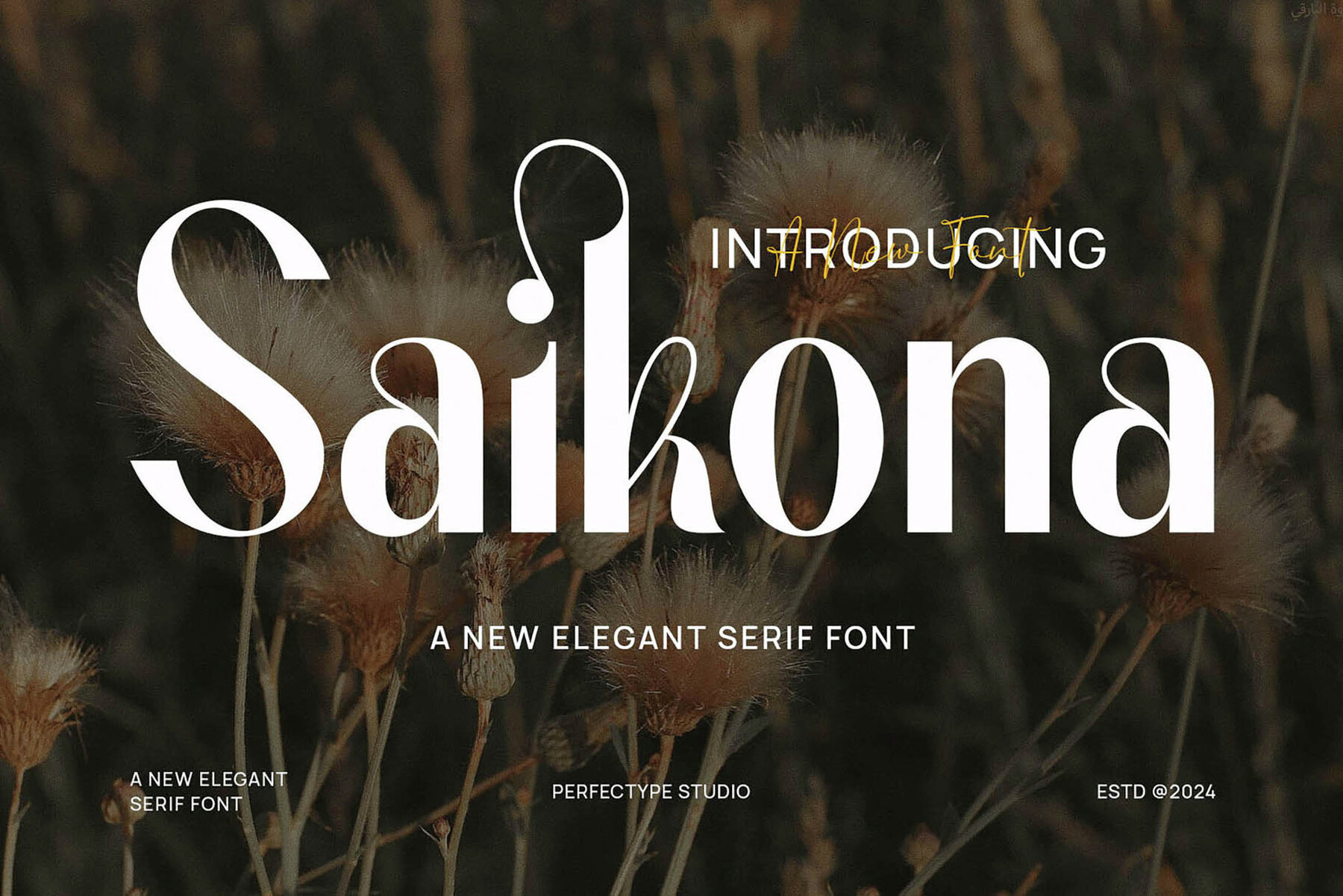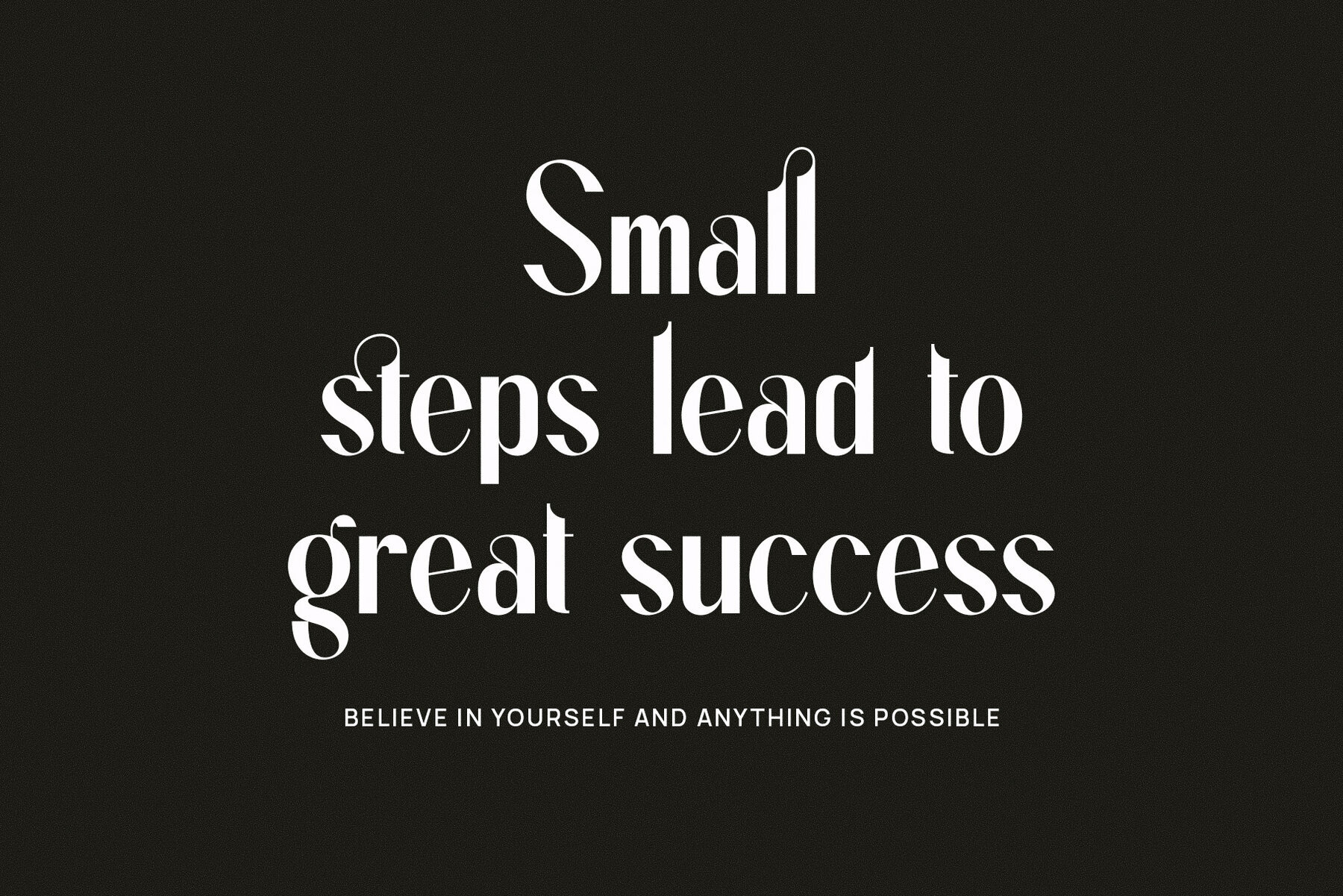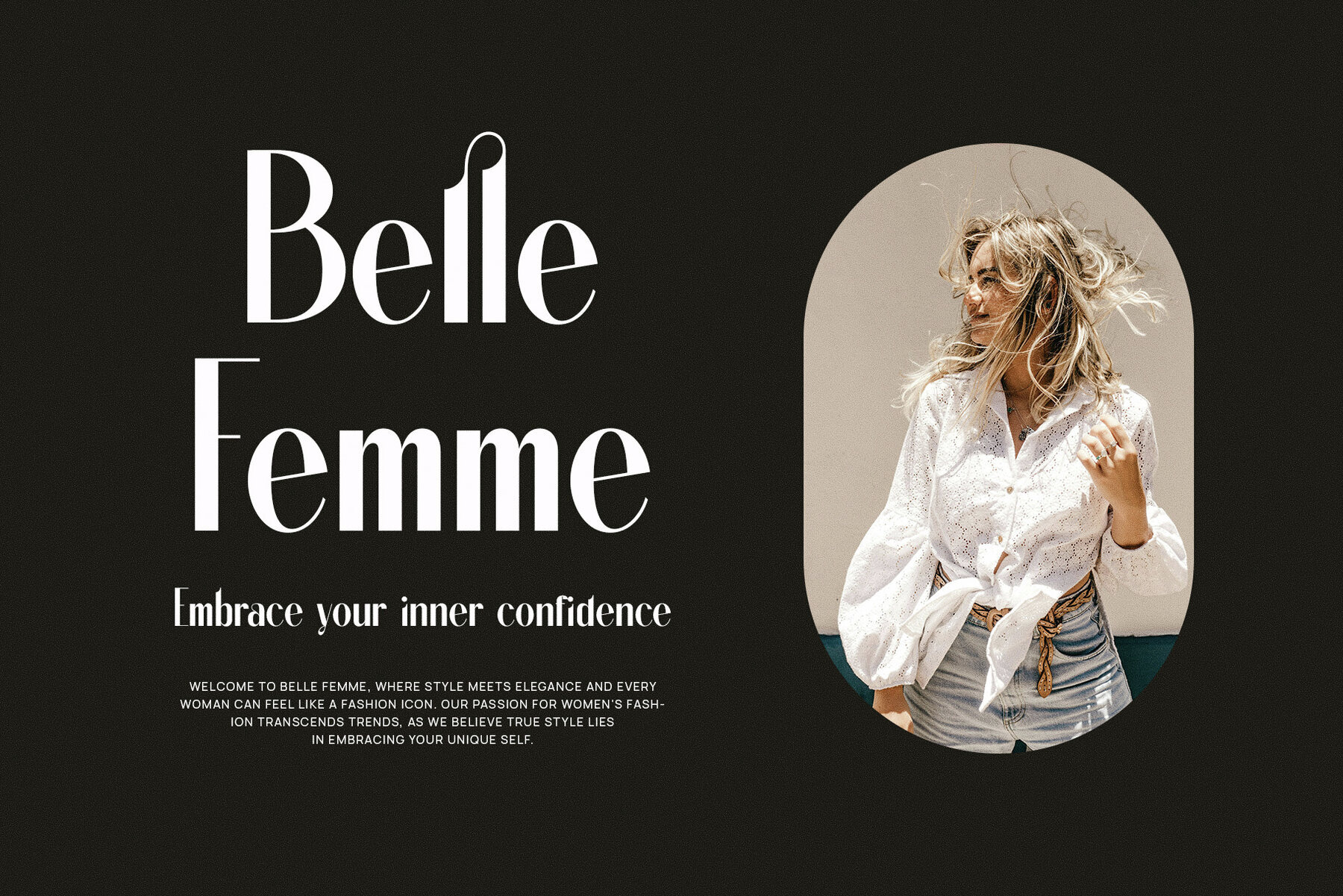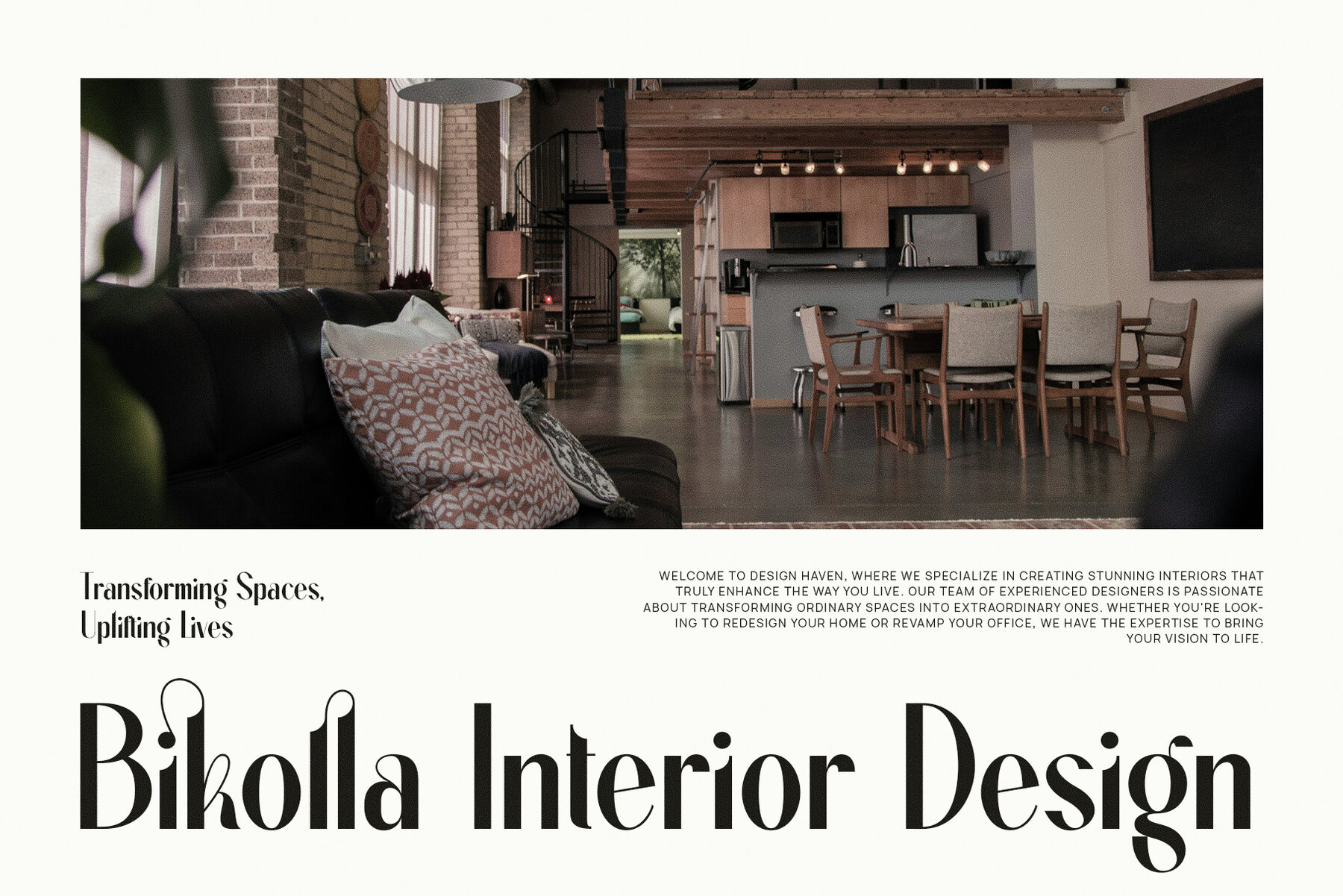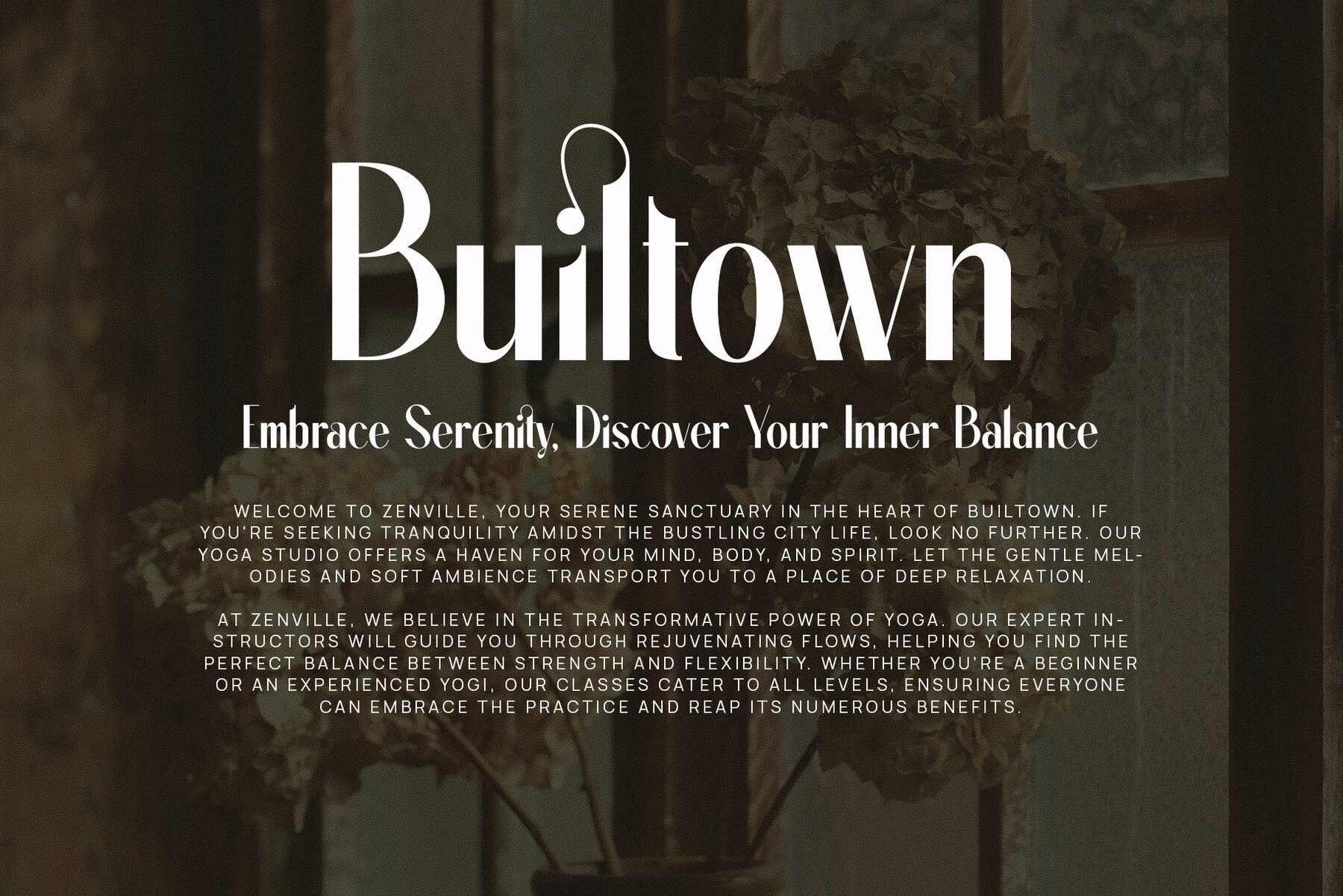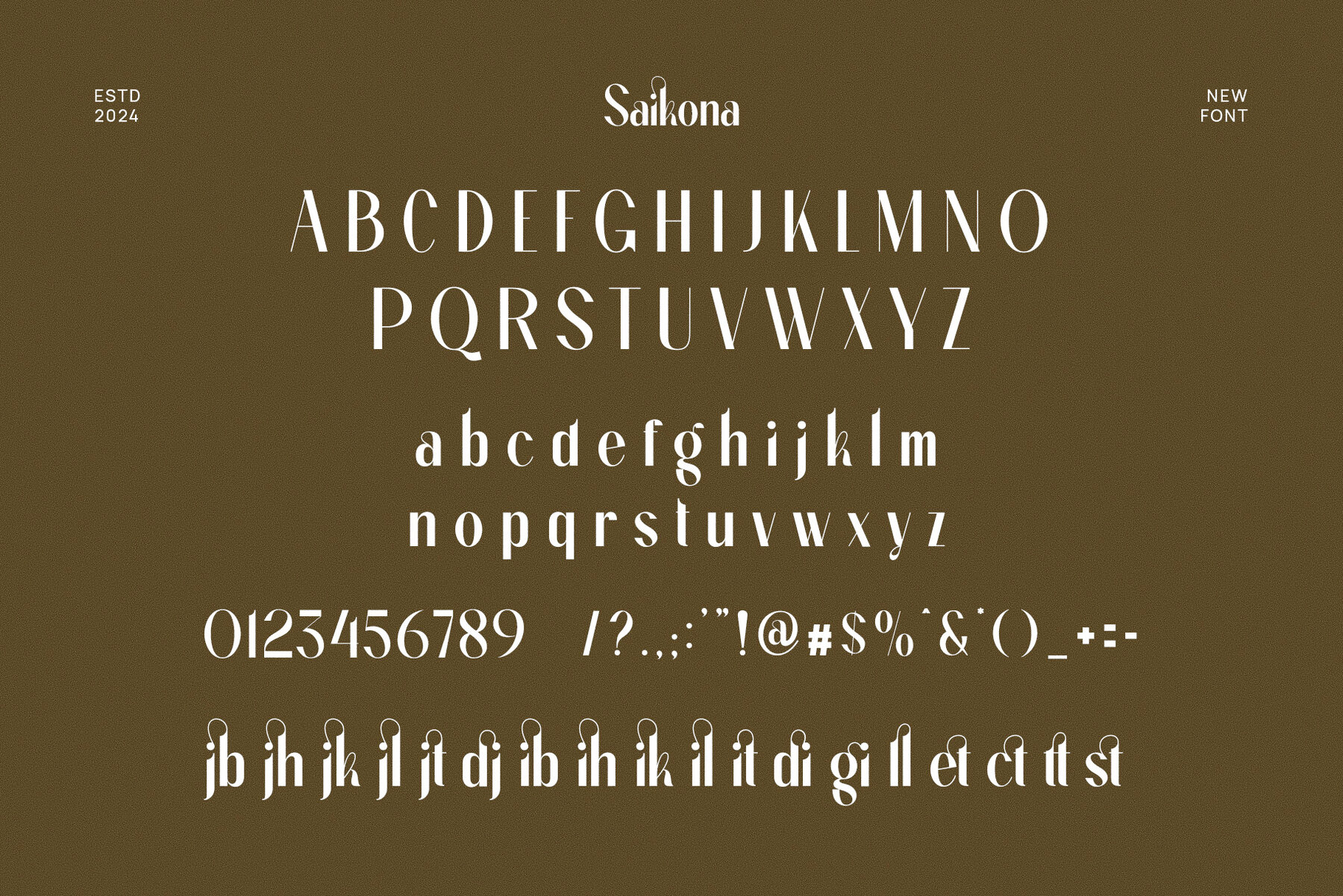
Saikona
Saikona Elegant Serif Font embodies modern sophistication with a refined twist on classic serif design. Its beautifully crafted letterforms effortlessly blend timeless elegance with contemporary flair, making it ideal for luxurious branding, high-end logos, and premium marketing materials. The font's distinctive shape, graceful ligatures, and versatile alternates ensure that every design feels unique and personal. Whether designing an upscale website, creating elegant magazine layouts, or developing striking advertising, Saikona's elegant serifs and balanced proportions offer a bold yet refined touch.
Saikona is versatile in both digital and print applications, making it a perfect choice for industries that prioritize aesthetics and detail, such as fashion, food, hospitality, and luxury goods. This font's sophisticated yet approachable style allows it to seamlessly enhance everything from boutique store branding to food packaging designs. Its beautifully designed ligatures and alternates enable fluid connections between characters, giving your text a cohesive and artistic feel. Saikona is an essential tool for designers aiming to create refined and memorable brand experiences, adding a touch of grace that elevates any project into a work of art.